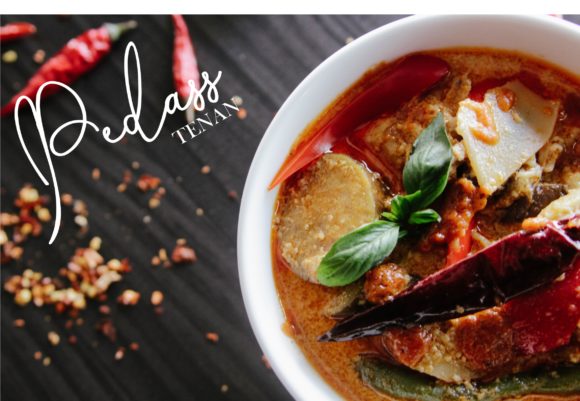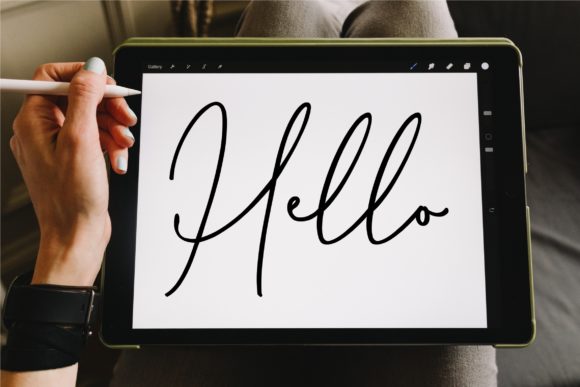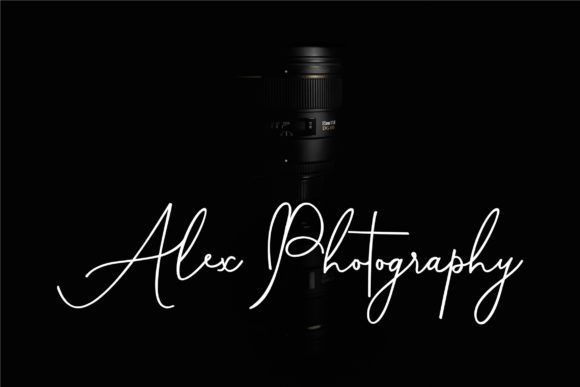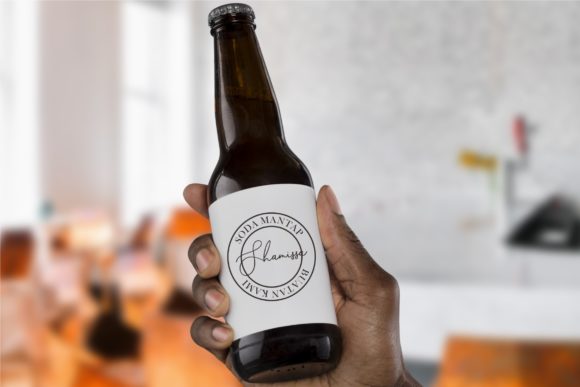
Shamissa Font
About Shamissa Font
Shamissa is a charming and elegant handwritten font with an authentic feel. Get inspired by its unique vibe, and turn any design project into an artwork!